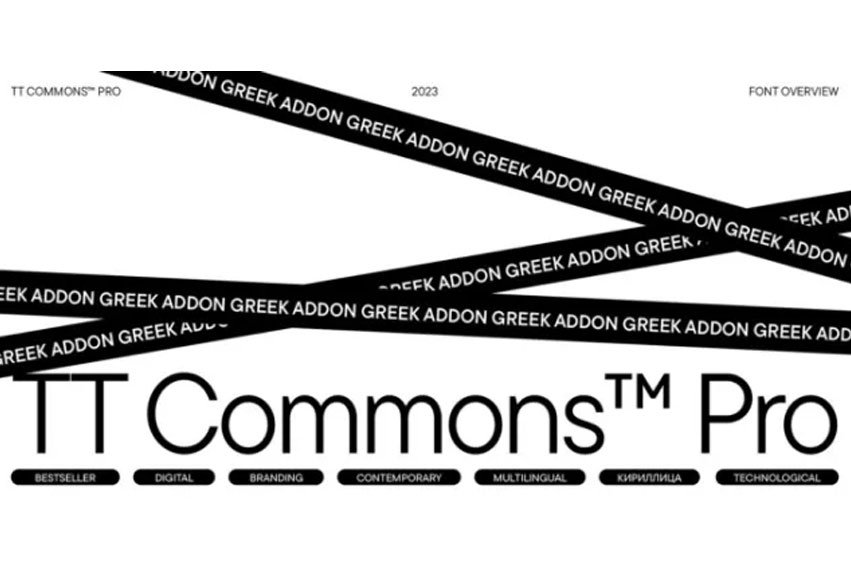
TT Commons Pro Font Family is a geometric sans serif. This is one of the studio’s most popular fonts, known for its versatile nature, large character set supporting more than 280 languages, and functional set of OpenType features.
TT Commons™ Pro has become our best seller for a reason: its range of applications knows no bounds, and the possibilities are practically endless! This font is utilized in a variety of contexts and fields, from tech firms and clothing brands to charities, food items, and many others. If you need an all-purpose typeface that is well-suited for both day-to-day tasks and creative designs—you have found it!